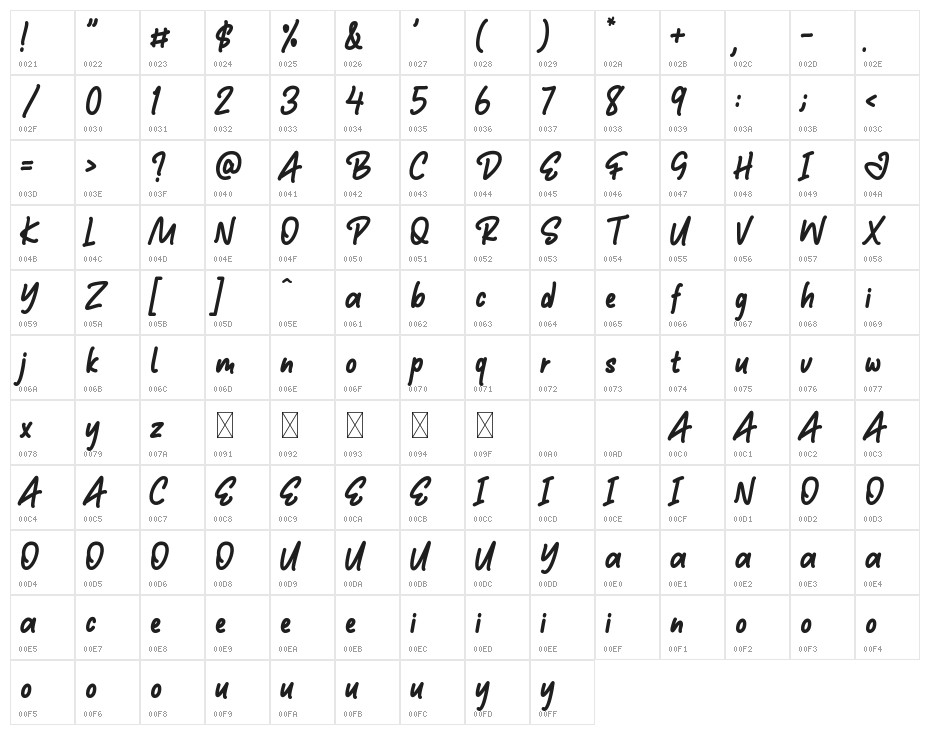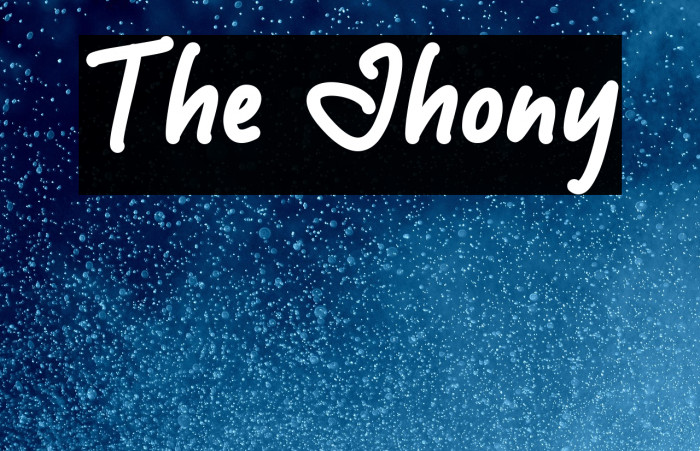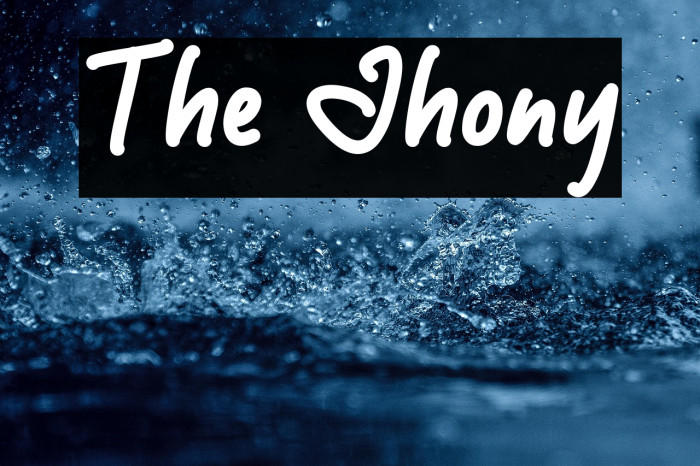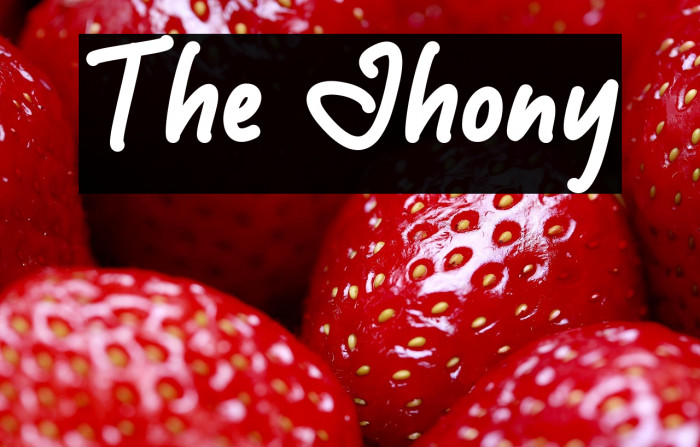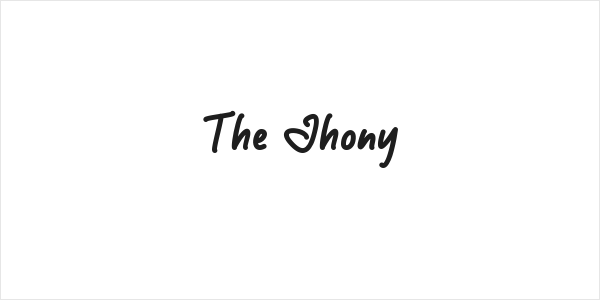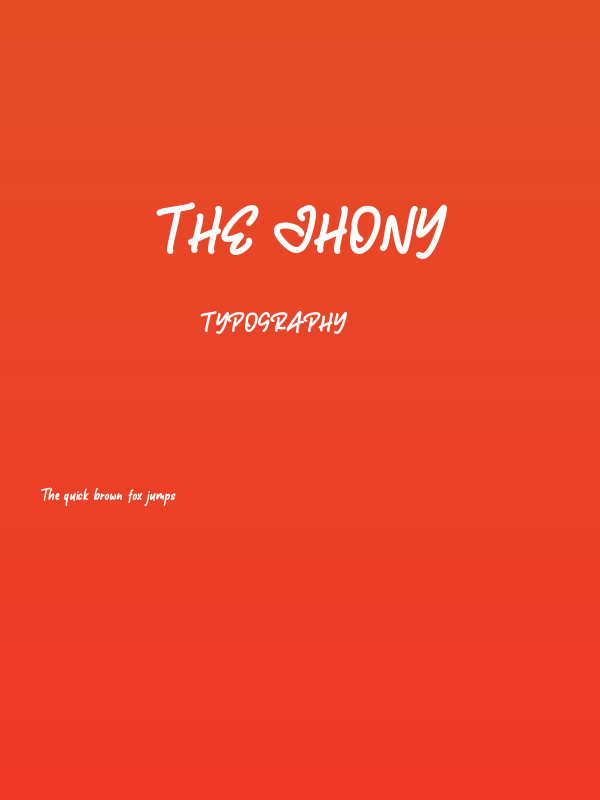
The Jhony Font
The Jhony Description
A bold, handwritten script font with a casual and playful style, featuring smooth curves and a slightly slanted orientation.
| Proposed Projects | Greeting cards, invitations, casual branding. |